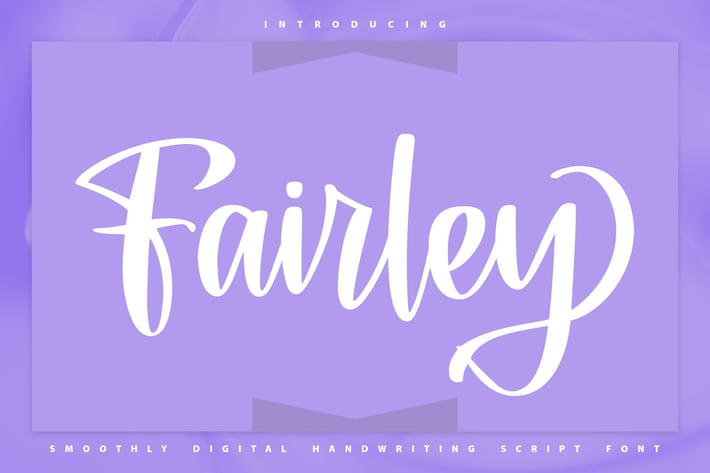
Fairley | Smoothly Handwriting Script Font
Fairley | Smoothly Handwriting Script Font with a calligraphy style, So beautiful on invitation like greeting cards, branding materials, business cards, quotes, posters, and more!